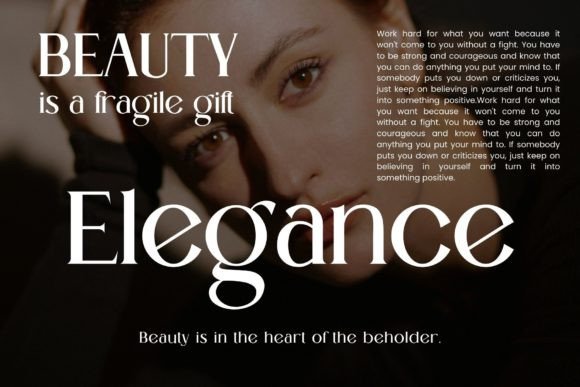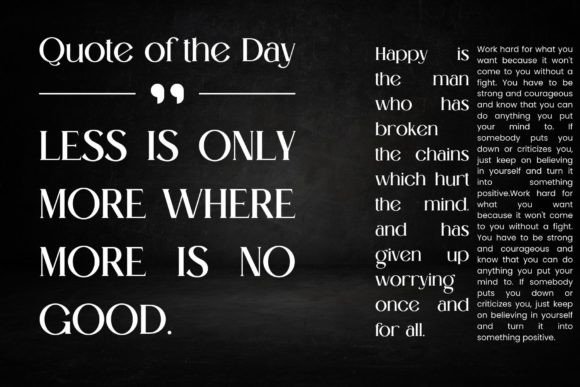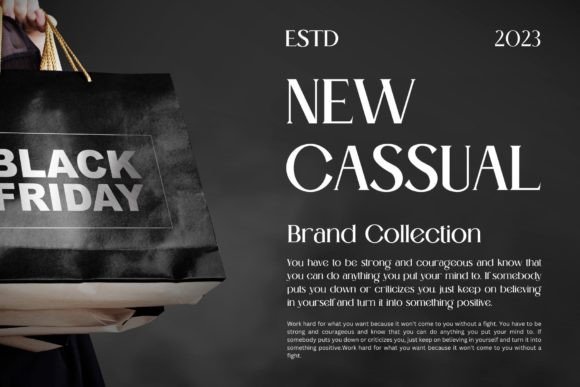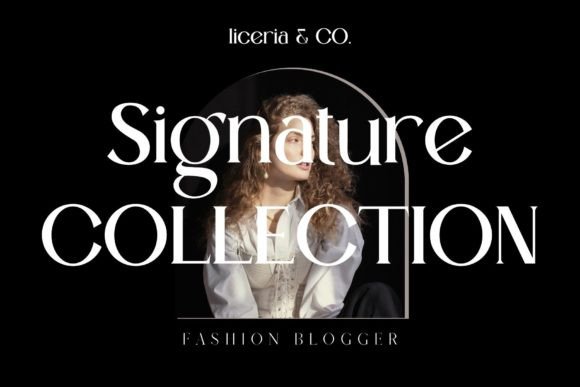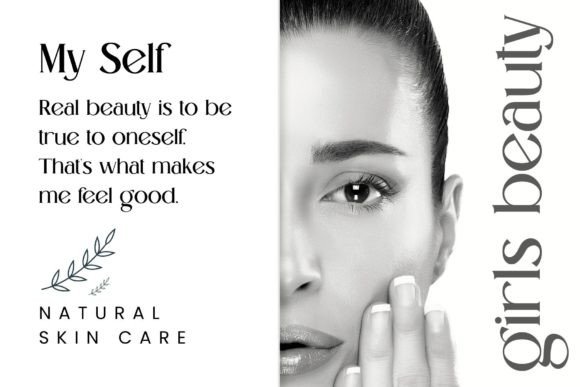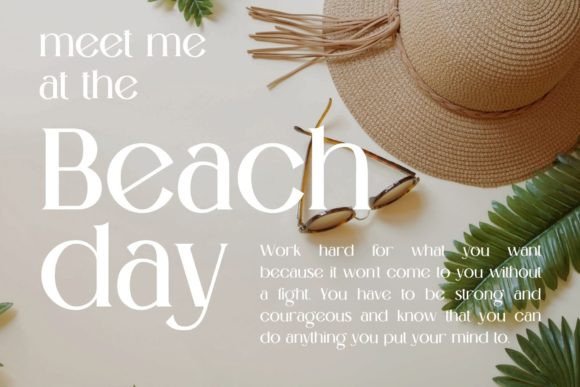
Beling Font: Elevate Your Designs with Elegance and Sophistication
In the world of typography, a well-crafted font can make all the difference in elevating your design to new heights. For designers and crafters seeking a typeface that exudes elegance, sophistication, and a touch of nostalgia, look no further than Beling Font. This stunning serif typeface strikes the perfect balance between modernity and classic charm, making it an ideal choice for a wide range of design applications.
The Characteristics of Beling Font
Beling Font is characterized by its refined and classy appearance, featuring subtle serif details that add a touch of sophistication to any design. The font’s elegant lines and curves create a sense of fluidity, making it perfect for use in logos, magazines, and social media platforms. Whether you’re looking to create a bold statement or a more understated look, Beling Font is versatile enough to adapt to your design needs.
Why Choose Beling Font?
So, what sets Beling Font apart from other typefaces? Here are just a few reasons why designers and crafters are falling in love with this beautiful font:
- Elegance and Sophistication: Beling Font boasts a refined and classy appearance that’s perfect for high-end designs, luxury brands, and sophisticated publications.
- Modern and Nostalgic: This font seamlessly blends modernity with nostalgia, making it suitable for a wide range of design applications, from contemporary logos to vintage-inspired magazines.
- Versatility: Beling Font works beautifully in various design contexts, including logos, magazines, social media, and more.
- Readability: The font’s clear and legible design ensures that your message is conveyed with ease, making it perfect for body text and headlines.
Design Applications for Beling Font
Beling Font is a versatile typeface that can be used in a variety of design applications, including:
- Logos: Create a lasting impression with a custom logo that showcases your brand’s personality and style.
- Magazines and Publications: Add a touch of elegance to your publication with Beling Font, perfect for article titles, headings, and body text.
- Social Media: Elevate your social media presence with eye-catching graphics and typography that showcase your brand’s unique voice.
- Packaging and Advertising: Make a statement with Beling Font on product packaging, billboards, and print ads.
Tips for Using Beling Font Effectively
To get the most out of Beling Font, here are some expert tips to keep in mind:
- Pair with contrasting fonts: Combine Beling Font with a bold sans-serif font to create visual interest and hierarchy.
- Experiment with font sizes: Play with different font sizes to create a clear visual hierarchy and emphasize key messages.
- Use subtle color variations: Add depth and nuance to your design with subtle color variations that complement the font’s elegant lines.
| Font Name | Beling Font |
| Author | Alfinart |
In conclusion, Beling Font is a stunning serif typeface that offers a perfect blend of elegance, sophistication, and versatility. Whether you’re a designer, crafter, or simply someone who appreciates beautiful typography, this font is sure to elevate your designs to new heights. With its modern and nostalgic charm, Beling Font is the perfect choice for logos, magazines, social media, and a wide range of design applications.